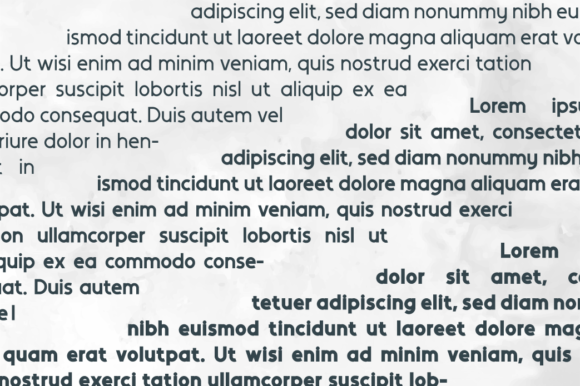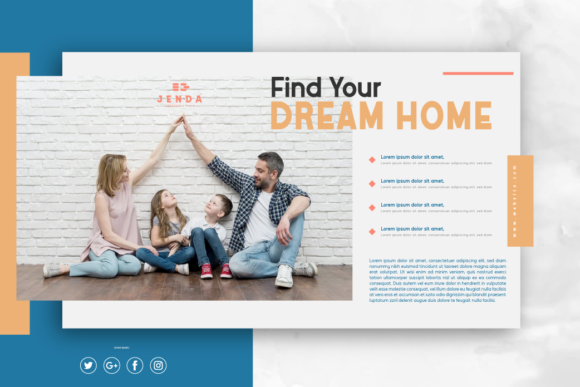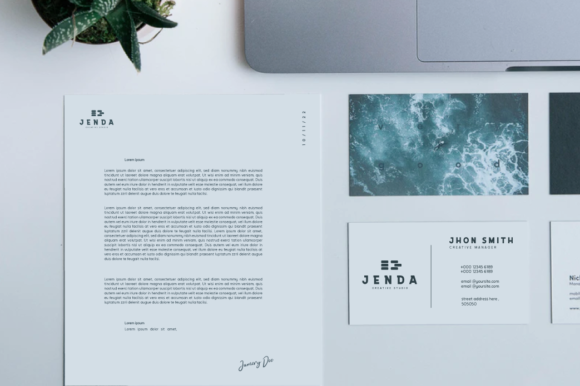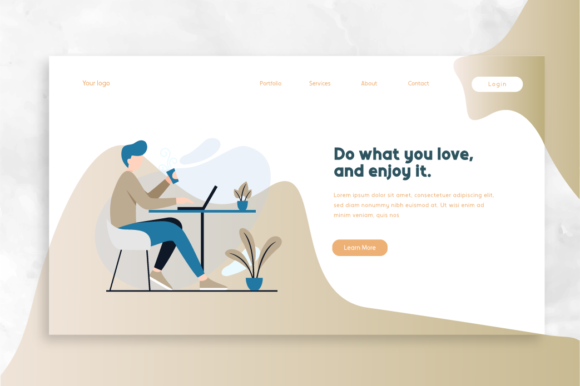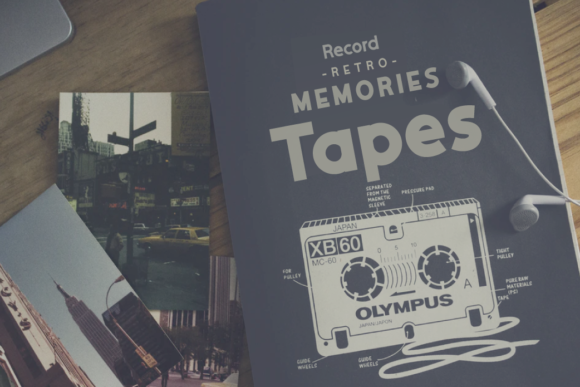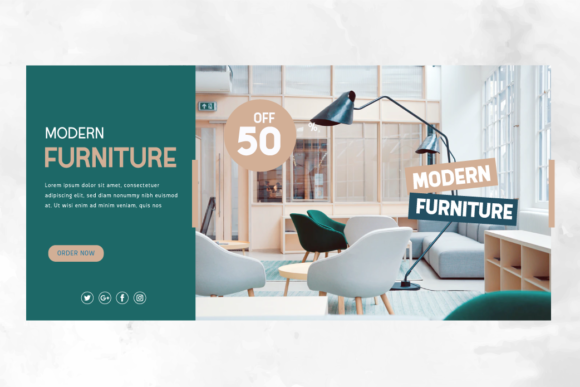
Bentto Font: The Ultimate Sans Serif Font for Crafty Designs
Are you a designer or crafter looking for a font that is simple, casual, and easy to use? Look no further than Bentto Font! This sans serif font is perfect for adding a touch of elegance and sophistication to your craft designs. In this article, we’ll take a closer look at Bentto Font, its features, and how you can use it to elevate your designs.
What is Bentto Font?
Bentto Font is a simple and casual sans serif font that is designed to be easy to use and versatile. It is perfect for designers and crafters who want to add a touch of modernity and elegance to their designs. The font is clean, crisp, and highly legible, making it ideal for use in a variety of design projects, from crafting and DIY tutorials to branding and marketing materials.
Key Features of Bentto Font
So, what makes Bentto Font so special? Here are some of its key features:
- Simple and Casual Design: Bentto Font has a simple and casual design that makes it perfect for use in a variety of craft designs, from scrapbooking to card making.
- Easy to Use: The font is highly legible and easy to use, making it perfect for designers and crafters of all skill levels.
- Sans Serif Design: The sans serif design of Bentto Font makes it perfect for use in modern and contemporary designs.
- Highly Versatile: Bentto Font can be used in a variety of design projects, from crafting and DIY tutorials to branding and marketing materials.
How to Use Bentto Font in Your Designs
So, how can you use Bentto Font in your designs? Here are a few ideas to get you started:
- Pair it with Other Fonts: Bentto Font looks great when paired with other fonts, such as script fonts or bold sans serif fonts. Experiment with different font combinations to find the perfect look for your design.
- Use it in Crafting and DIY Tutorials: Bentto Font is perfect for use in crafting and DIY tutorials, such as knitting or sewing patterns.
- Add it to Your Branding Materials: Use Bentto Font in your branding materials, such as business cards, brochures, and website headers, to add a touch of modernity and elegance.
- Use it in Social Media Graphics: Bentto Font is perfect for use in social media graphics, such as Facebook and Instagram posts.
Benefits of Using Bentto Font
So, why should you use Bentto Font in your designs? Here are just a few benefits:
- Elegant and Sophisticated Look: Bentto Font adds a touch of elegance and sophistication to your designs, making them stand out from the crowd.
- Easy to Read: The font is highly legible and easy to read, making it perfect for use in designs where text needs to be clear and concise.
- Versatile: Bentto Font can be used in a variety of design projects, making it a great addition to your font library.
In conclusion, Bentto Font is a simple and casual sans serif font that is perfect for designers and crafters who want to add a touch of elegance and sophistication to their designs. With its easy-to-use design, highly legible text, and versatile nature, Bentto Font is a great addition to any font library. So why not give it a try and see how it can elevate your designs?
Tips and Tricks for Using Bentto Font
Here are a few tips and tricks for using Bentto Font in your designs:
- Experiment with Different Font Sizes: Try using Bentto Font in different font sizes to add visual interest to your designs.
- Use it with Images: Bentto Font looks great when paired with images, such as photos or illustrations.
- Add a Pop of Color: Use Bentto Font in a bold, bright color to add a pop of color to your designs.
By following these tips and tricks, you can get the most out of Bentto Font and create beautiful, professional-looking designs that showcase your creativity and style.